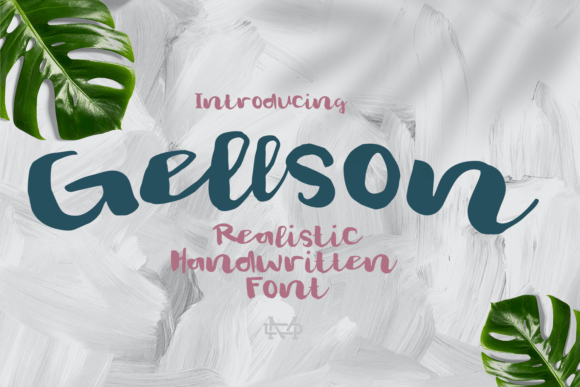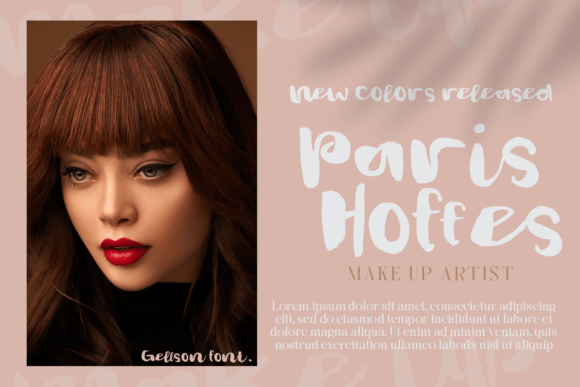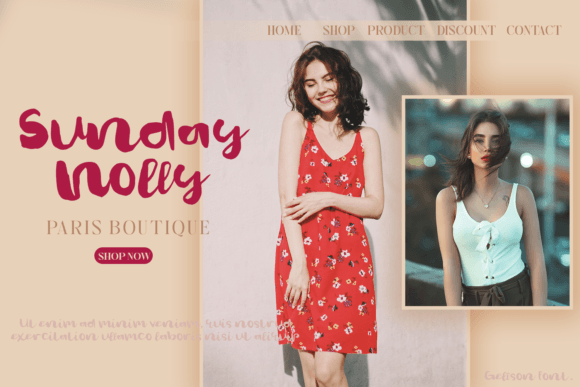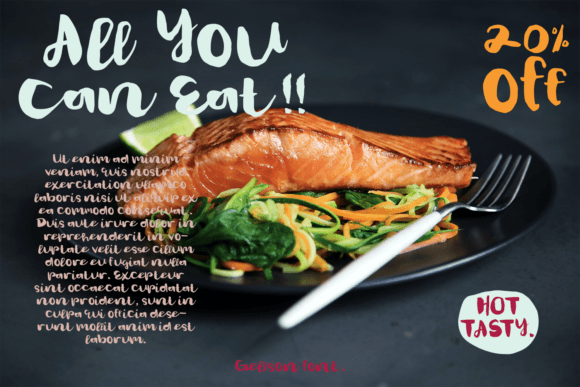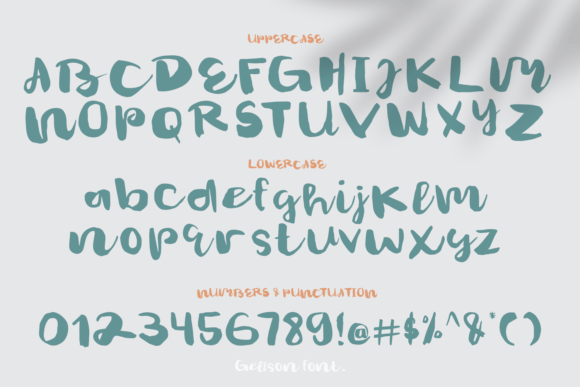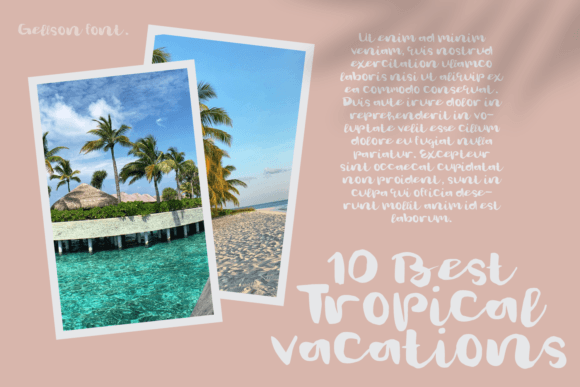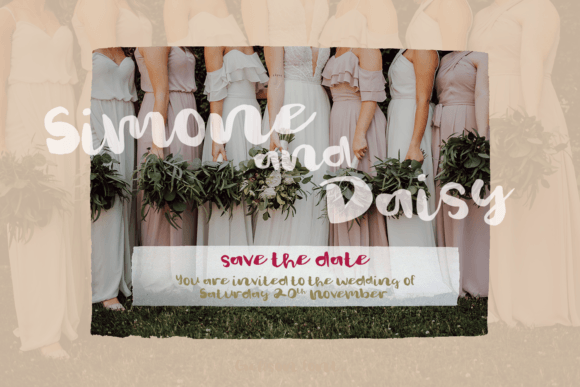
The Art of Personal Touch: Unveiling the Gelsson Font
There’s something special about creating a custom logo or invitation that truly reflects the essence of a person or brand. It’s that moment when a simple design element can evoke emotions and leave a lasting impression. For designers, this is where the magic happens, and the right font can make all the difference.
Enter the Gelsson Font, a stylish and realistic script that brings a touch of handcrafted elegance to any design. With its well-formed letters and subtle variations in stroke width and height, this versatile font is perfect for creating unique logos, invitations, and branding materials that exude a personal touch. Whether you’re a seasoned designer or just starting out, the Gelsson Font is an invaluable addition to your toolkit, offering endless possibilities for creative expression.
- Font Family: Gelsson comes in multiple font families (Regular, Italic, Bold, and Bold Italic) to cater to various design needs.
- Character Count: The font includes a comprehensive character set with over 800 glyphs, covering Latin, Cyrillic, and Greek alphabets.
- Unique Characteristics: Gelsson features a unique blend of modern and vintage elements, making it perfect for creating eye-catching headlines and titles.
Gelsson Font Review
I recently had the chance to work with the Gelsson Font, and I have to say it’s a mixed bag. While it has some great qualities, it also has some notable limitations.
- Unique Character**: The Gelsson Font has a distinct, modern feel that sets it apart from more traditional fonts.
- Legibility**: The font is well-suited for body text, with clear and readable letterforms.
- Good for Digital**: The Gelsson Font looks great on screens, making it a good choice for digital projects.
- Lack of Versatility**: The font feels a bit one-dimensional, lacking the nuance and expressiveness of more versatile fonts.
- Not Ideal for Print**: While the font works well digitally, it may not be the best choice for print projects due to its relatively low x-height and limited line spacing options.
- Not Suitable for Headings**: The font’s unique character is lost when used for headings, making it less effective for titles and other emphasis.
Overall, I think the Gelsson Font has some great qualities, but its limitations hold it back from being a truly exceptional font. It’s a good choice for digital projects where a modern, clean look is desired, but it may not be the best fit for more complex or nuanced projects.
Gelsson Font is ideal for use in:
- Minimalist designs and branding materials.
- Modern and sleek digital products.
- High-end fashion and luxury branding.
For optimal use, pair Gelsson Font with clean and simple designs, and use it in combination with high-quality images and graphics.